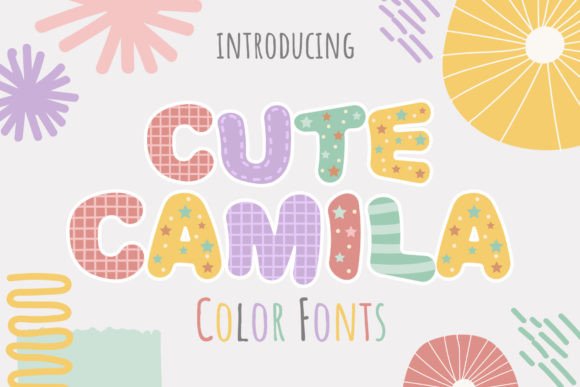
Are you on the hunt for the perfect font for your Christmas cards or festive creations? Look no further than Cute Camila Font, the best font for Christmas cards that will make your creations stand out from the crowd!
Created by Fox7, Cute Camila is a colorful font that exudes brightness, fun, and authenticity. Its charming and adorable look will make you fall in love with it and inspire you to create beautiful stationary art, stunning invitations, eye-catching social media posts, and cute greeting cards.
With Cute Camila, your designs will have a unique and charming touch that will capture the attention of everyone who lays eyes on them. This font is perfect for adding a touch of color and personality to your projects, and you'll be amazed at how it makes them pop and come to life!